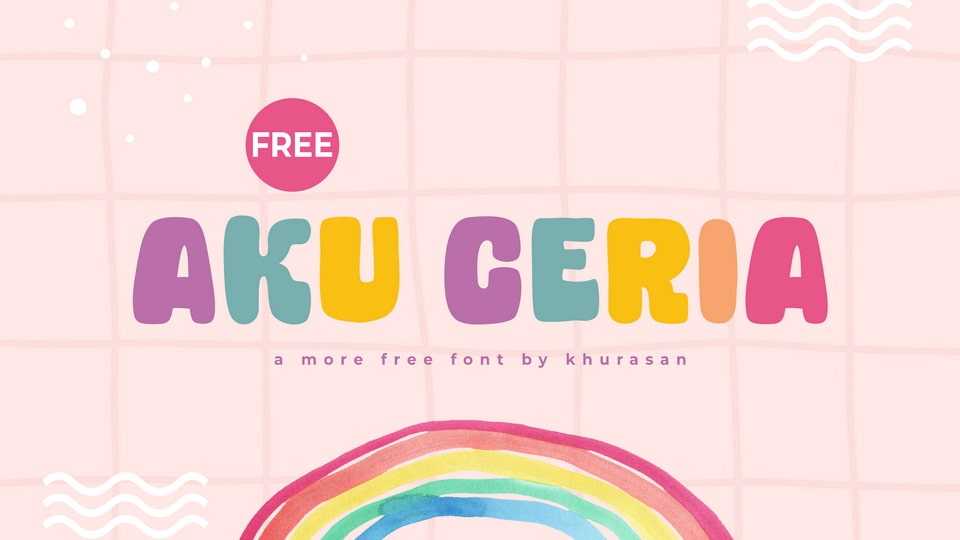
Download Aku Ceria font, a delightful and joyful display typeface that radiates positivity and playfulness with its rounded, chubby letterforms and colorful energy.